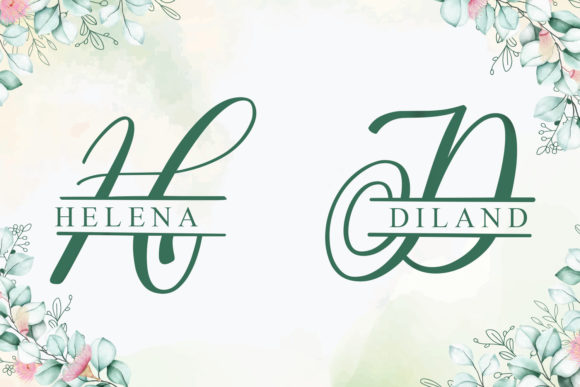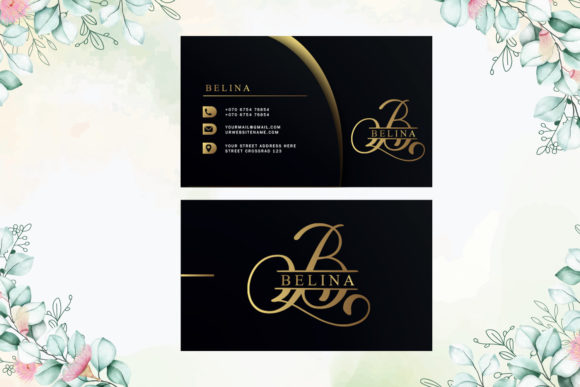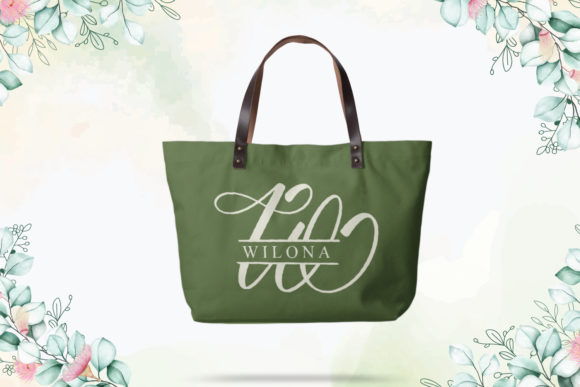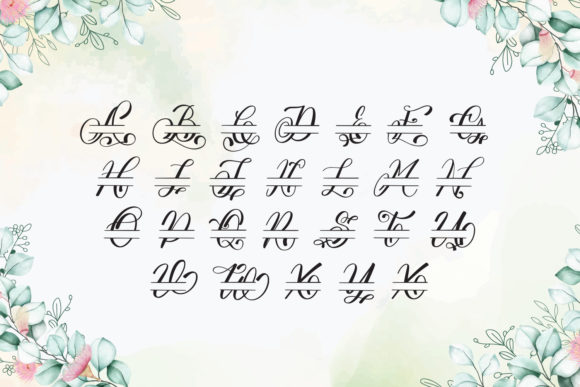
The Perfect Touch for Your Love Story
Do you remember the moment when you first fell in love with a font? Maybe it was the delicate curves of a handwritten script or the elegant flair of a vintage serif. For me, it’s the charming Alindra Monogram Font that never fails to capture my heart. Its dainty and unique design is a perfect blend of romance and sophistication, making it a must-have for any love story.
Alindra Monogram Font is a beautiful decorative font that adds a personal touch to your love letters, wedding invitations, and other special designs. Whether you’re a professional designer or a DIY enthusiast, this lovely font is sure to elevate your creations and leave a lasting impression. Its versatility and charm make it a valuable addition to any designer’s toolkit.
Alindra Monogram Font Key Features
- Unique Characteristics: The Alindra Monogram Font features intricate monogram designs, making it perfect for creating custom logos, invitations, and other personalized items.
- Script and Ligatures: The font includes a range of script and ligature styles, allowing for a high level of customization and creativity.
- Language Support: The font supports a wide range of languages, including Latin, Cyrillic, and Greek scripts, making it suitable for international designs.
Alindra Monogram Font Review
As a designer, I was excited to dive into the Alindra Monogram Font, and overall, it’s a solid choice for those looking for a stylish, luxurious feel. ✨ The font’s elegant curves and ornate details make it perfect for high-end branding, invitations, and other special occasion materials.
- ✨ Unique and sophisticated design, ideal for luxury brands
- ✨ Excellent for creating a sense of elegance and refinement
- ✨ Highly customizable, allowing for adjustments to suit your design needs
- ⚠️ May not be suitable for text-heavy materials, as it can be quite busy and difficult to read
- ⚠️ Can be challenging to pair with other fonts, as it has a strong, distinctive style
- ⚠️ Some users may find the font’s complexity overwhelming or difficult to work with
Overall, the Alindra Monogram Font is a great choice for designers looking to add a touch of luxury and sophistication to their projects. While it may have some limitations, its unique design and customization options make it a valuable asset in the right situations.
For a professional look, use the Alindra Monogram Font for titles and headings, and pair it with a clean sans-serif font for body text.
For a custom look, experiment with combining the Alindra Monogram Font with other fonts and design elements to create a unique style.
For a polished look, use the Alindra Monogram Font for titles and headings, and pair it with a clean sans-serif font for body text.
The Alindra Monogram Font is perfect for:
Brand logos and identity
Special occasion graphics and designs
Remember to use the Alindra Monogram Font consistently throughout your design to create a cohesive and professional look.